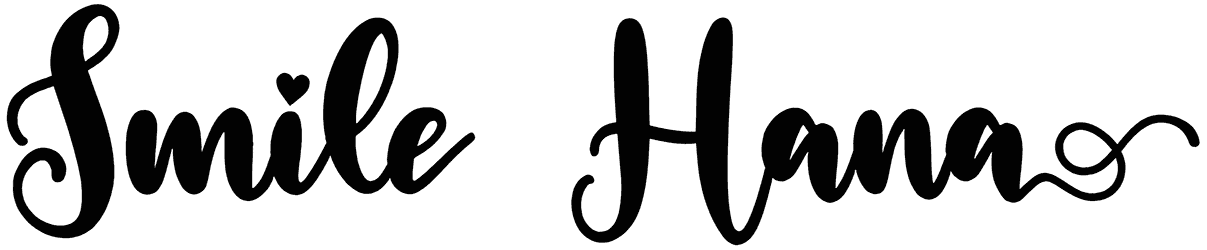
Smile Hana Font
Let’s use this adorable love font in your text to make it friendly and appealing. The characters are smooth and cursive, and they could be used for many projects, such as a gift card, a Christmas invitation flyer, and so forth. As a thank you font, apply the Smile Hana font to your next project and mesmerize your viewers.